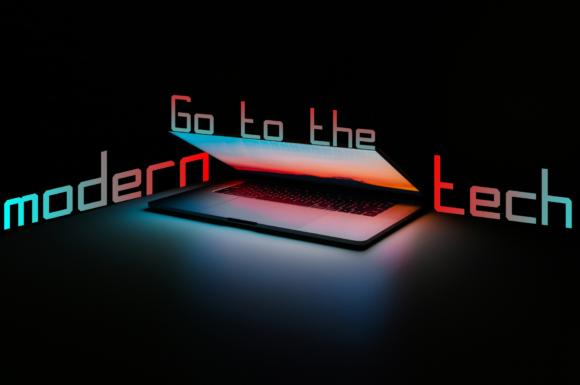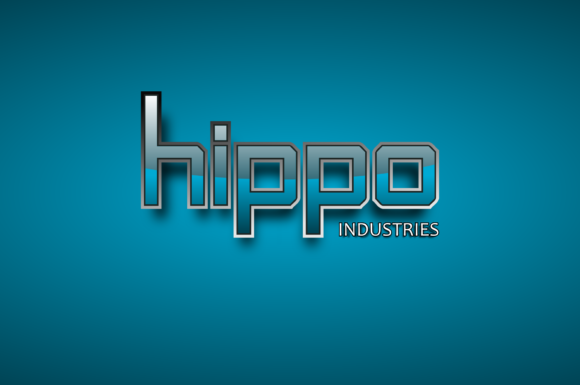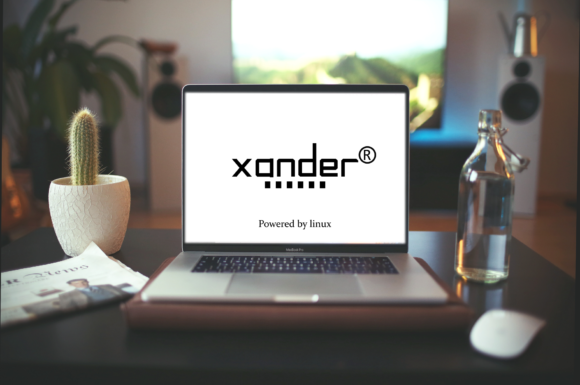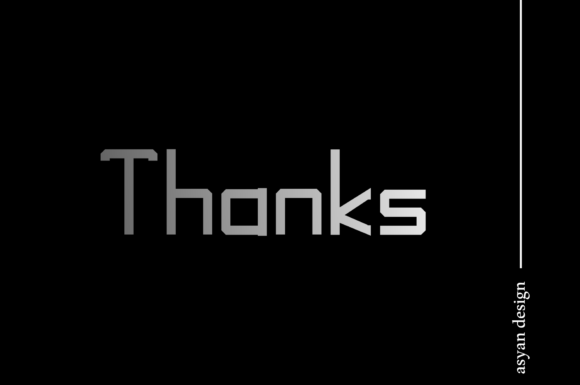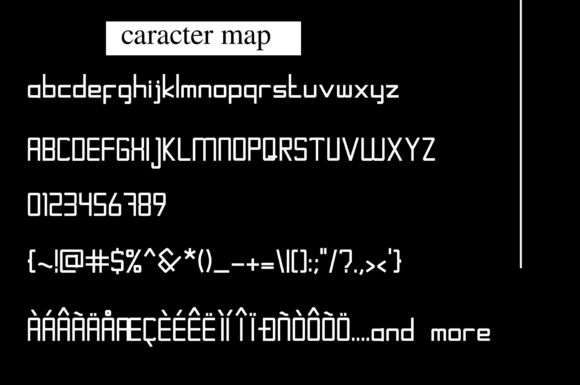
The Roar of Creativity: Unleashing the Power of Jaguar Font
Have you ever been stuck in front of your computer, staring at a blank screen, trying to conjure up the perfect design? The cursor blinks, taunting you with its steady rhythm. Suddenly, a spark of inspiration strikes, and the words begin to flow. This is the moment when the creative process comes alive, and the right font can be the catalyst that sets your ideas ablaze.
Meet Jaguar Font, a modern and clean sans serif designed to make a statement. With its exceptional readability, it’s the perfect choice for logos, magazines, and even watermarks. Whether you’re a seasoned designer or just starting out, Jaguar Font is an invaluable asset in your creative arsenal.
Jaguar Font Key Features
- Font Family: Jaguar Font is a sans-serif font family designed for modern and sleek typography.
- Character Set: Supports a wide range of languages, including Latin, Cyrillic, and Greek scripts, making it suitable for global branding and publishing.
- Unique Characteristics: Jaguar Font features a unique blend of modern and geometric shapes, with a focus on legibility and readability, making it ideal for headlines, titles, and body text.
- Font Weight and Style: Offers a range of font weights, from Light to Bold, and various styles, including Regular, Italic, and Bold Italic, for added versatility.
Jaguar Font Review
Overall, I’m quite impressed with the Jaguar Font. ✨ It’s a modern sans-serif font that’s perfect for creating a sleek and sophisticated look. I love how it’s designed to be highly legible, making it ideal for both digital and print use.
Here are some of the things I like about the Jaguar Font:
- ✨ Highly legible and clear, even at small font sizes.
- ✨ Versatile and suitable for a wide range of applications, from headings to body text.
- ✨ Well-suited for modern and minimalist designs, where clean lines and simplicity are key.
- ⚠️ The font may not be as expressive or emotive as some other fonts, which can make it feel a bit generic in certain contexts.
- ⚠️ It may not be the best choice for designs that require a lot of character or personality.
Overall, I think the Jaguar Font is a solid choice for designers looking for a modern, legible sans-serif font. While it may not be the most exciting or expressive font, it’s a reliable and versatile choice that’s sure to deliver professional-looking results.
Jaguar Font: A Comprehensive Guide
Here are some tips to get the most out of the Jaguar Font:
- Use the Jaguar Font in combination with other fonts to create a unique look.
- Pay attention to font pairing and balance to ensure your text is easy to read.
The Jaguar Font is perfect for:
- Business cards and stationery.
- Magazine and newspaper headlines.
Does Jaguar Font support Unicode characters?
Yes, Jaguar Font includes a comprehensive character set that supports Unicode characters, including Latin, Cyrillic, Greek, and many other languages. This allows designers to create multilingual designs and communicate effectively with diverse audiences.